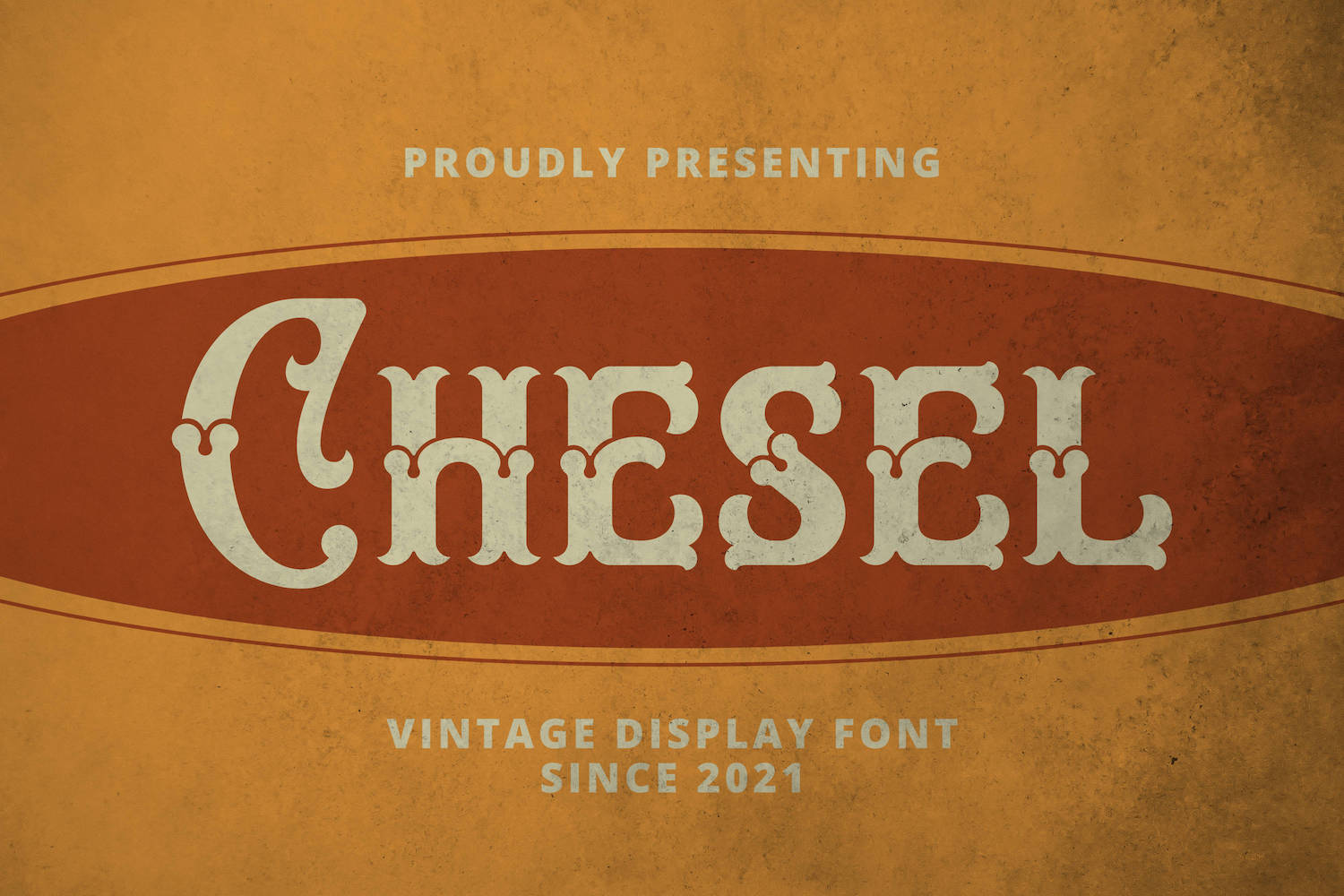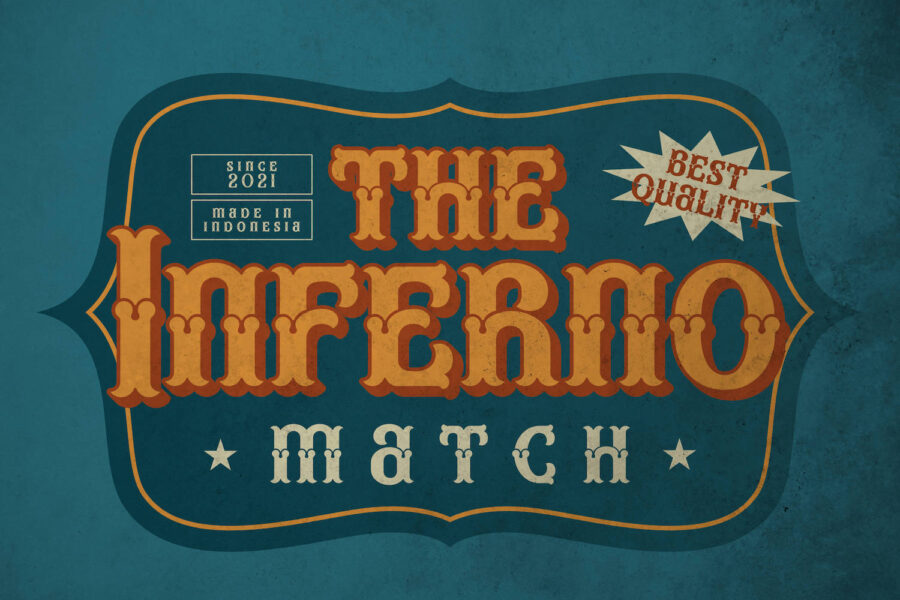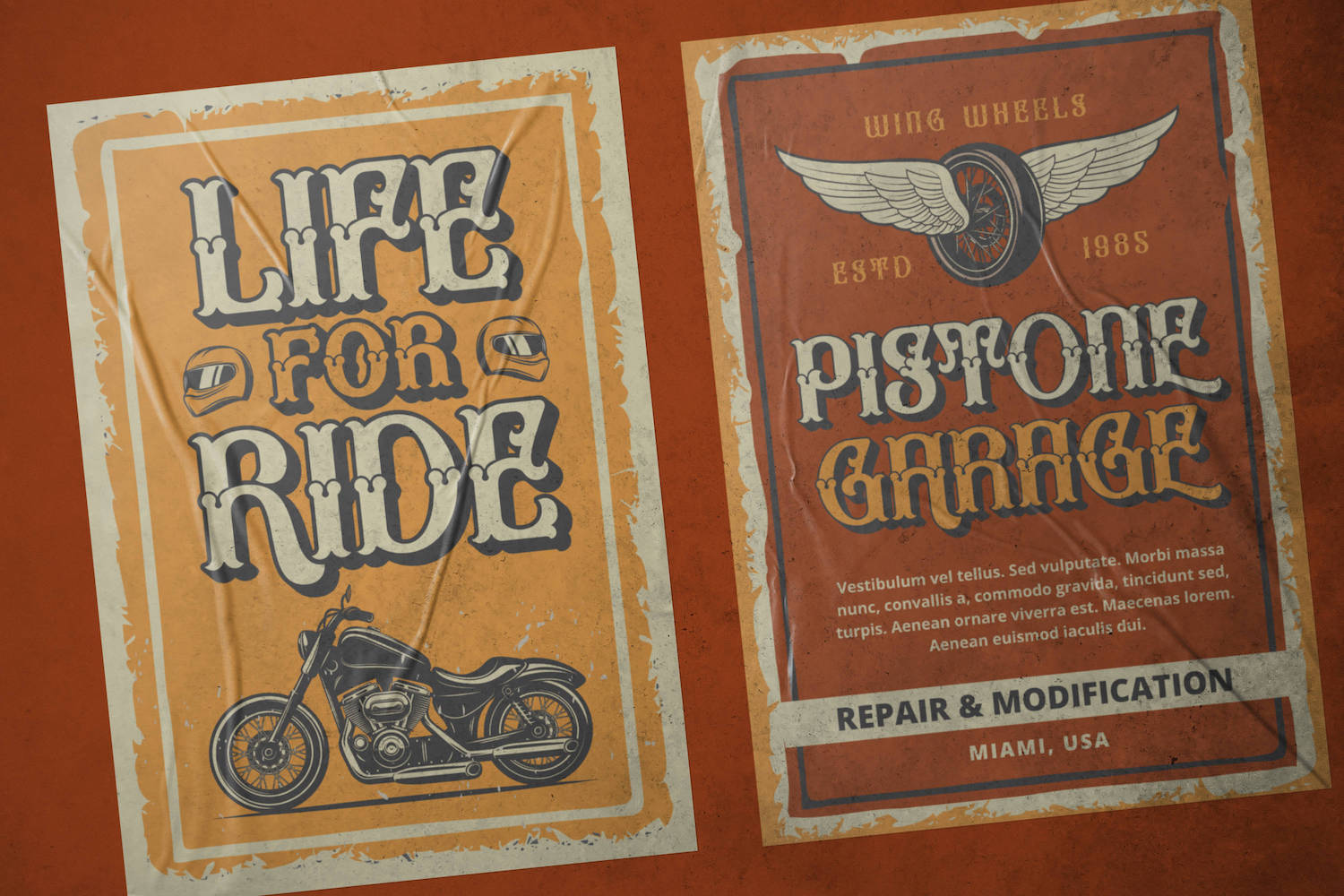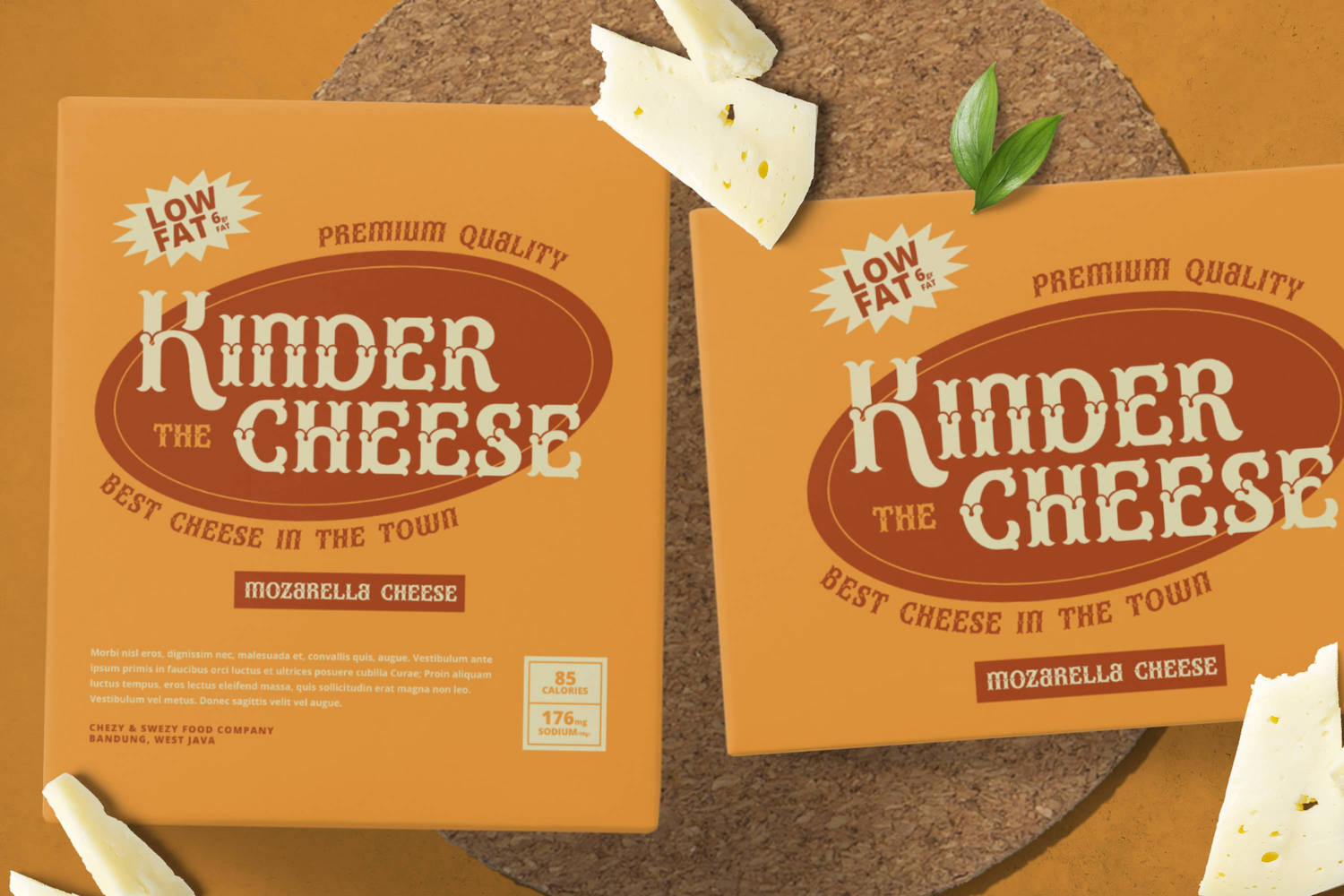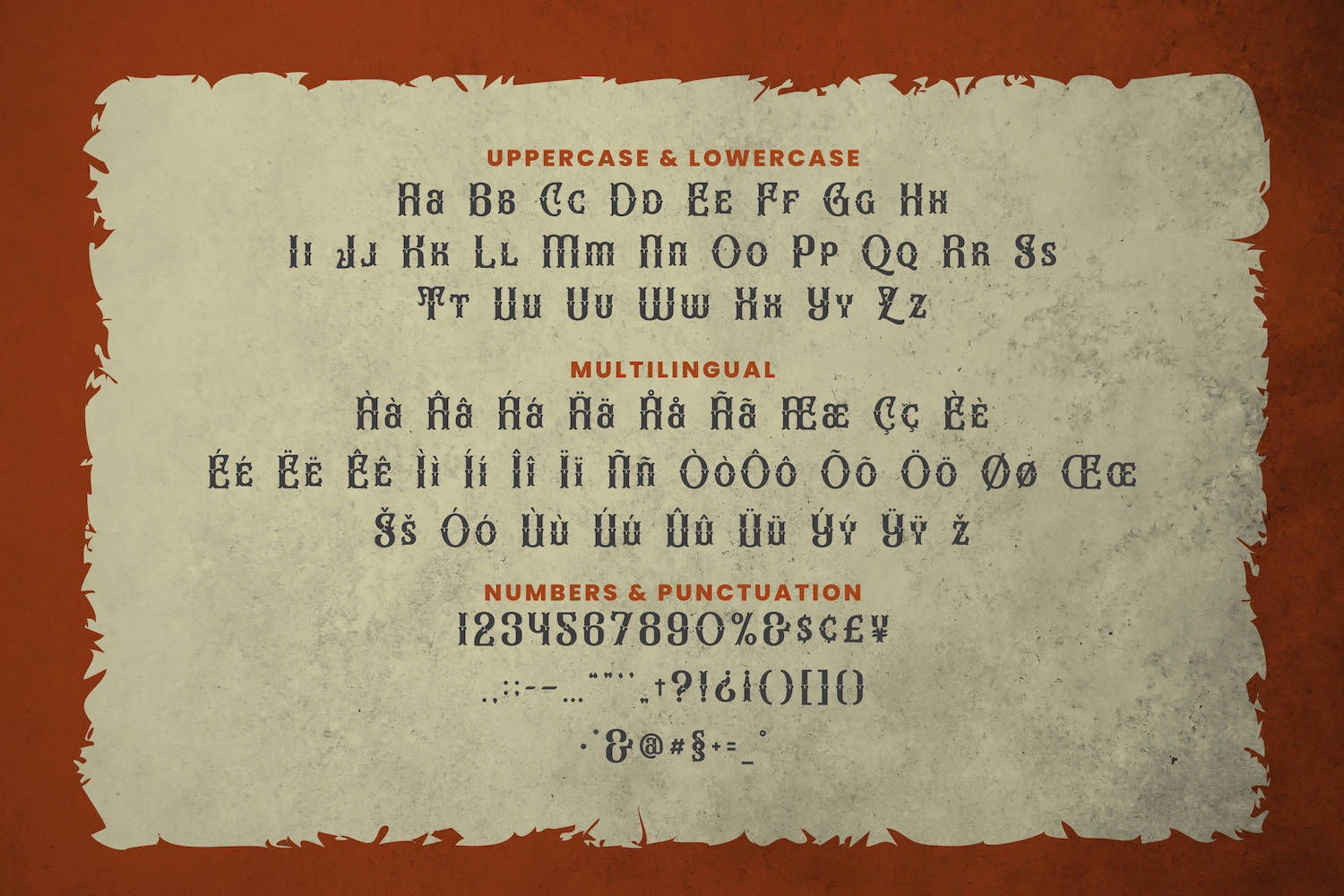
Chesel is a retro-inspired vintage display font that blends playful charm with bold, nostalgic character. Its distinct ornamental terminals and unique curves evoke the aesthetics of old matchbox labels, soda brands, and roadside diner signs, making it a perfect typeface for creating standout headlines with a retro twist.
Crafted with a strong attention to typographic flair, Chesel supports multilingual characters and includes an array of punctuation for versatile use. Whether applied to vintage packaging, poster designs, or branding for food and apparel, Chesel captures the timeless soul of classic Americana with a contemporary punch.
Chesel